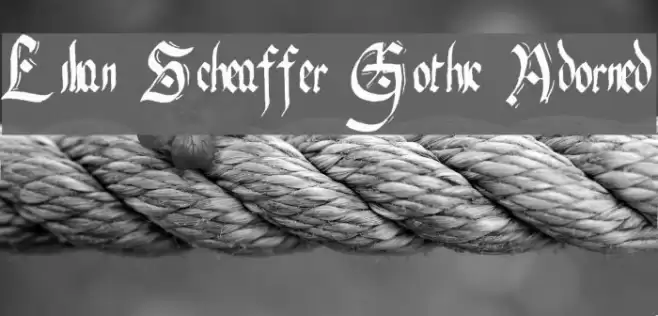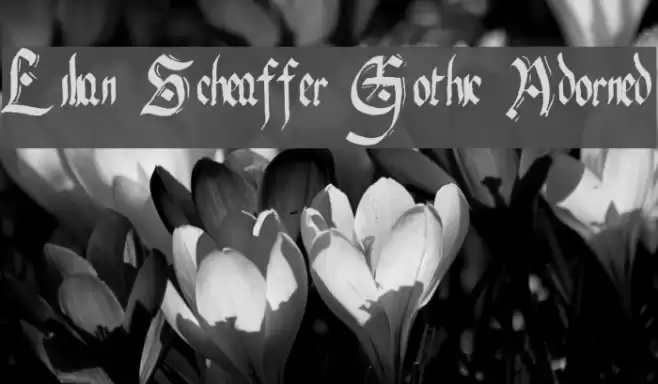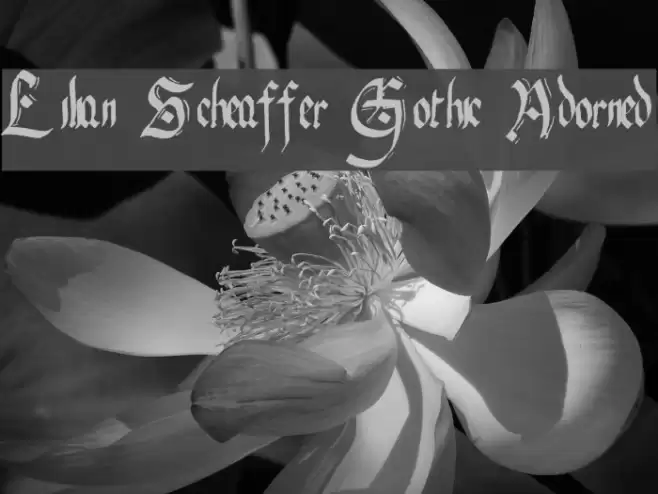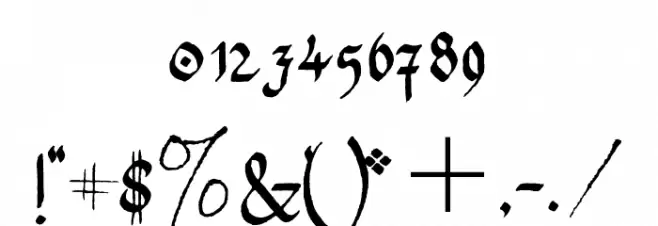
Lilian Scheaffer Gothic Adorned Font
Lilian Scheaffer Gothic Adorned Description
This font features a distinct Gothic style with ornate and intricate details. The uppercase letters are characterized by sharp, angular lines and elaborate flourishes, giving them a dramatic and historical appearance. The lowercase letters maintain the Gothic aesthetic with a slightly more condensed form, yet they retain the same level of detail and complexity. The numerals are consistent with the overall style, featuring similar decorative elements. Special characters are uniquely styled, adding to the font's ornate and embellished look. This font is perfect for projects that require a medieval or historical theme, offering a sense of grandeur and elegance.
An ornate Gothic font with intricate details and dramatic flourishes from Uncategorized fonts.
- Proposed Projects: Ideal for historical themed designs, book covers, posters, and branding that requires a medieval or elegant touch.
- Overall Style: Vintage
- Use Case: Logos, Headlines, Decorative text